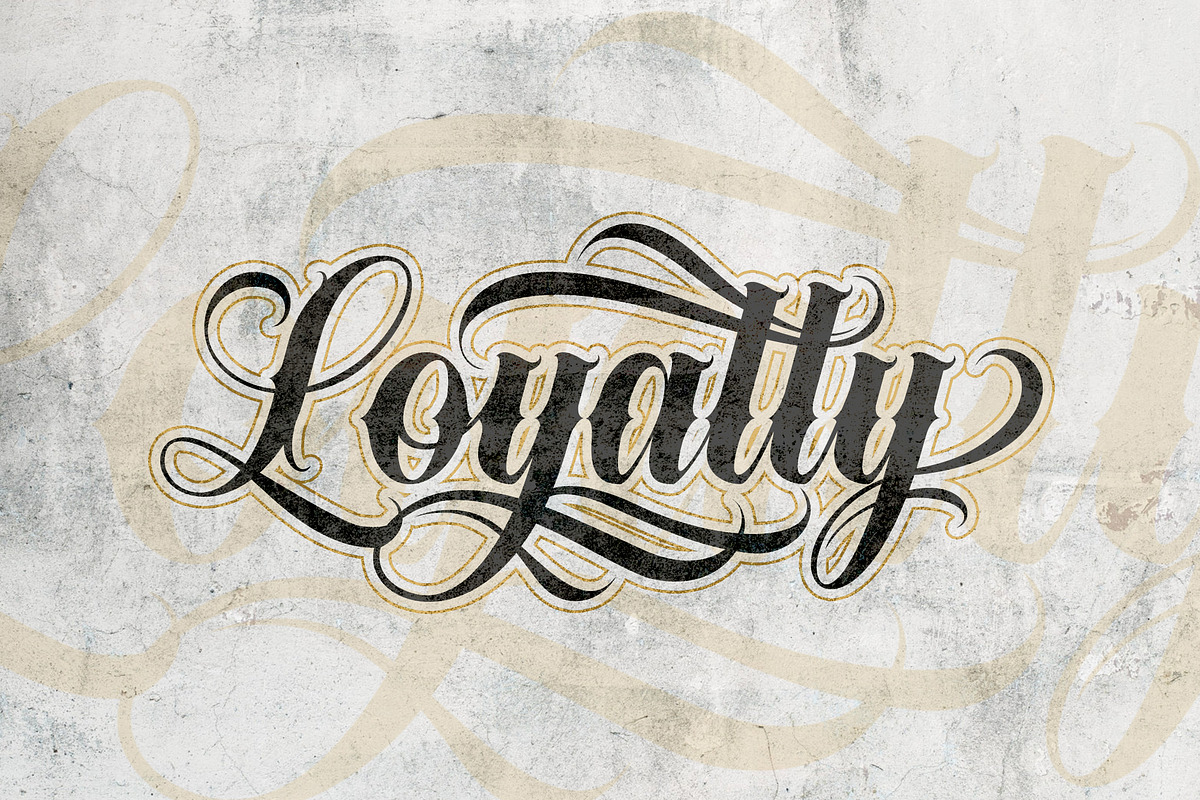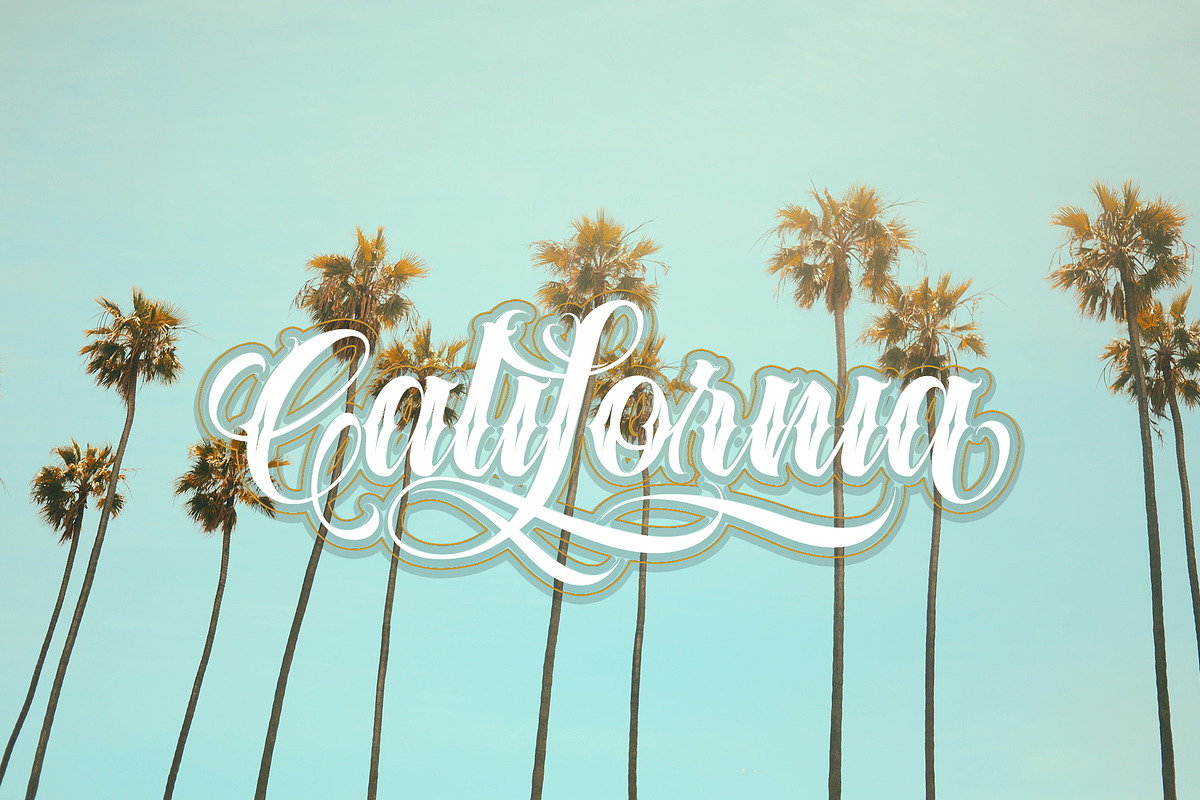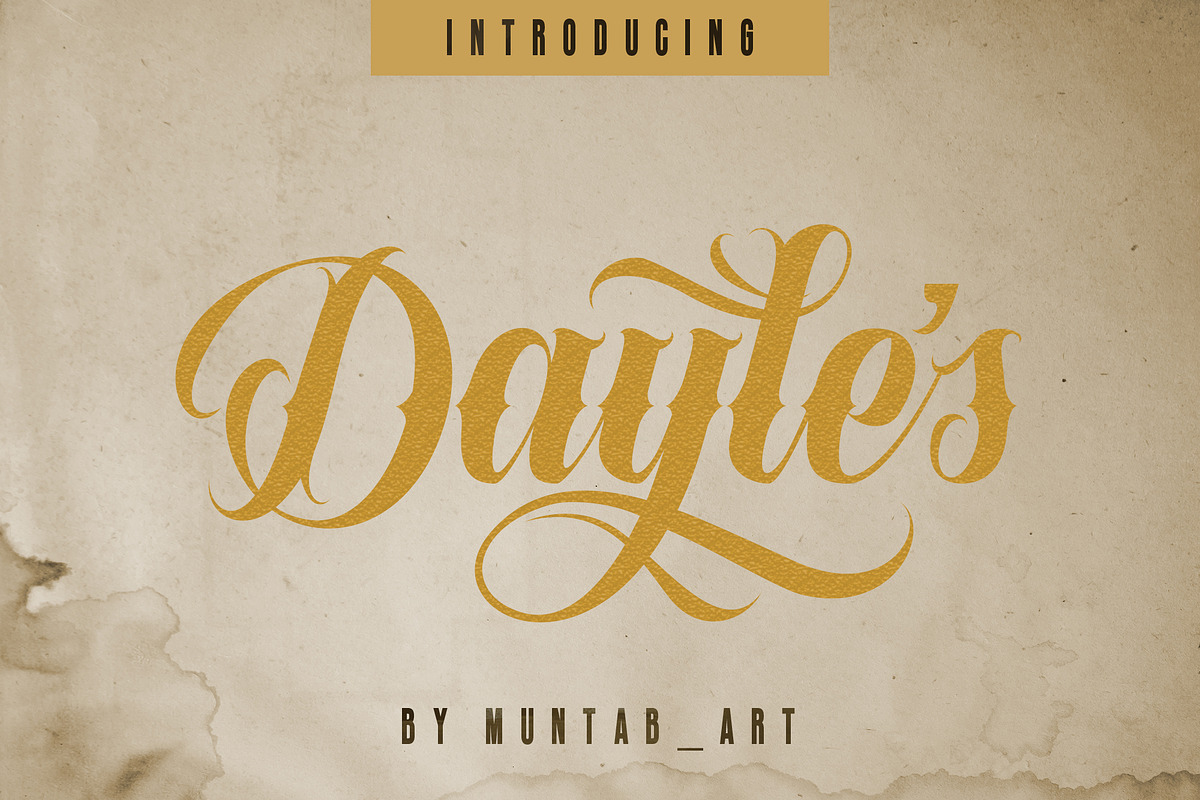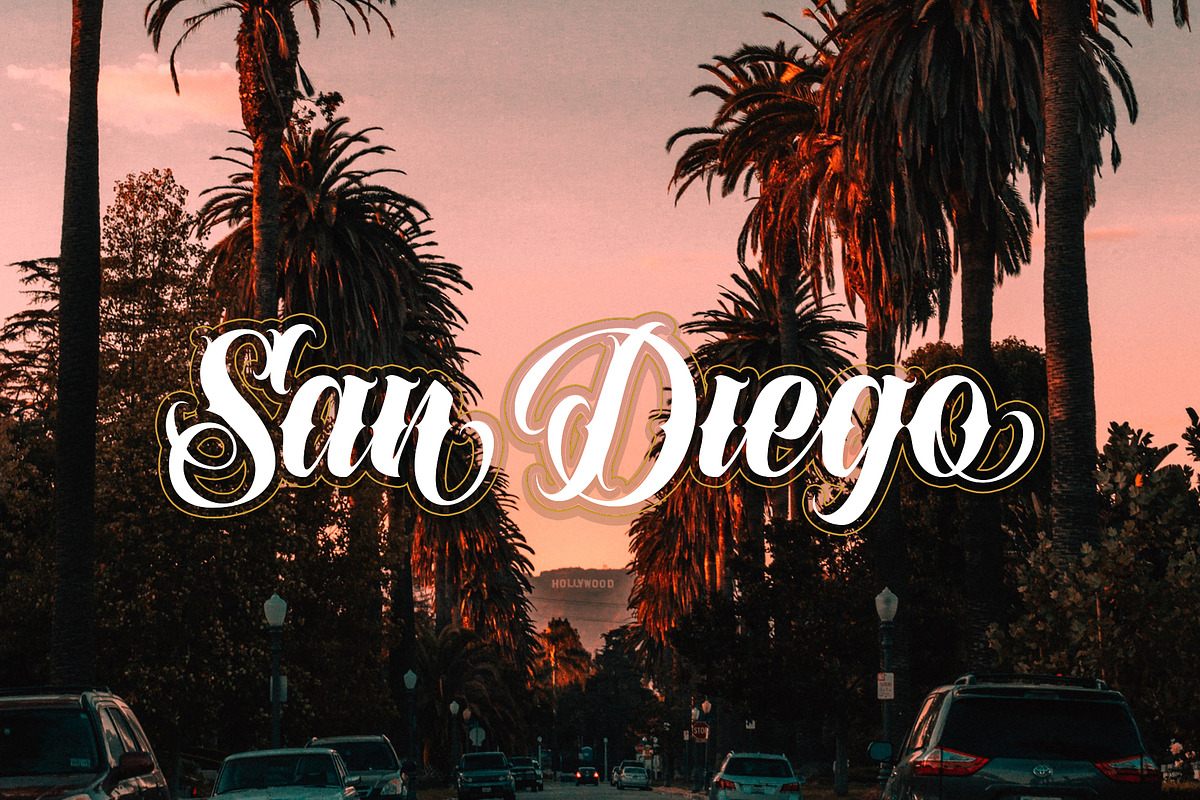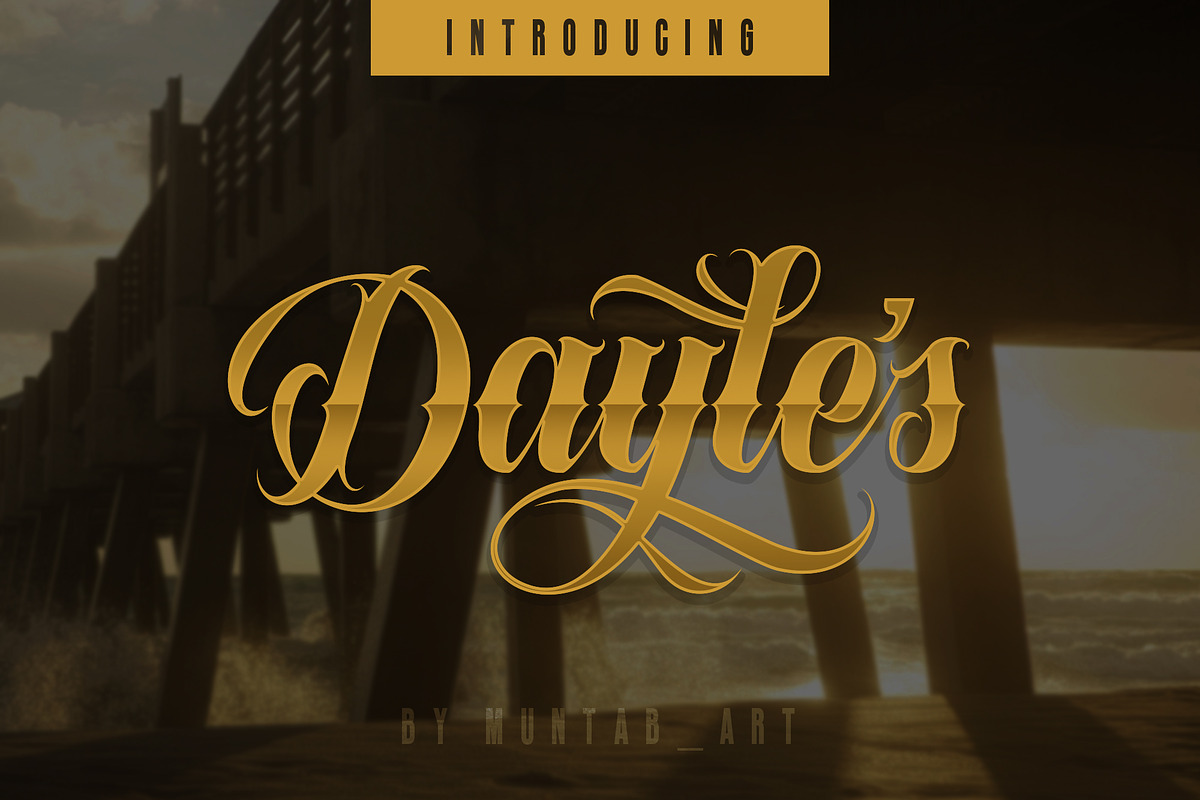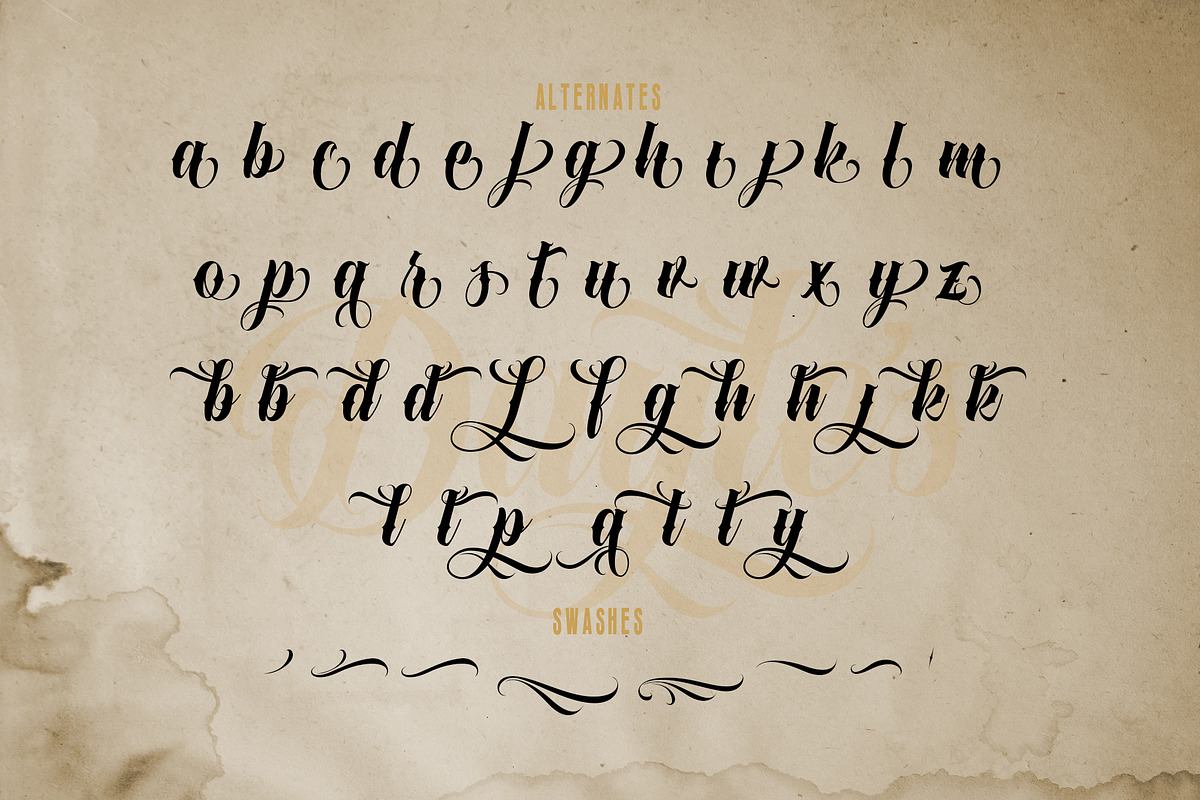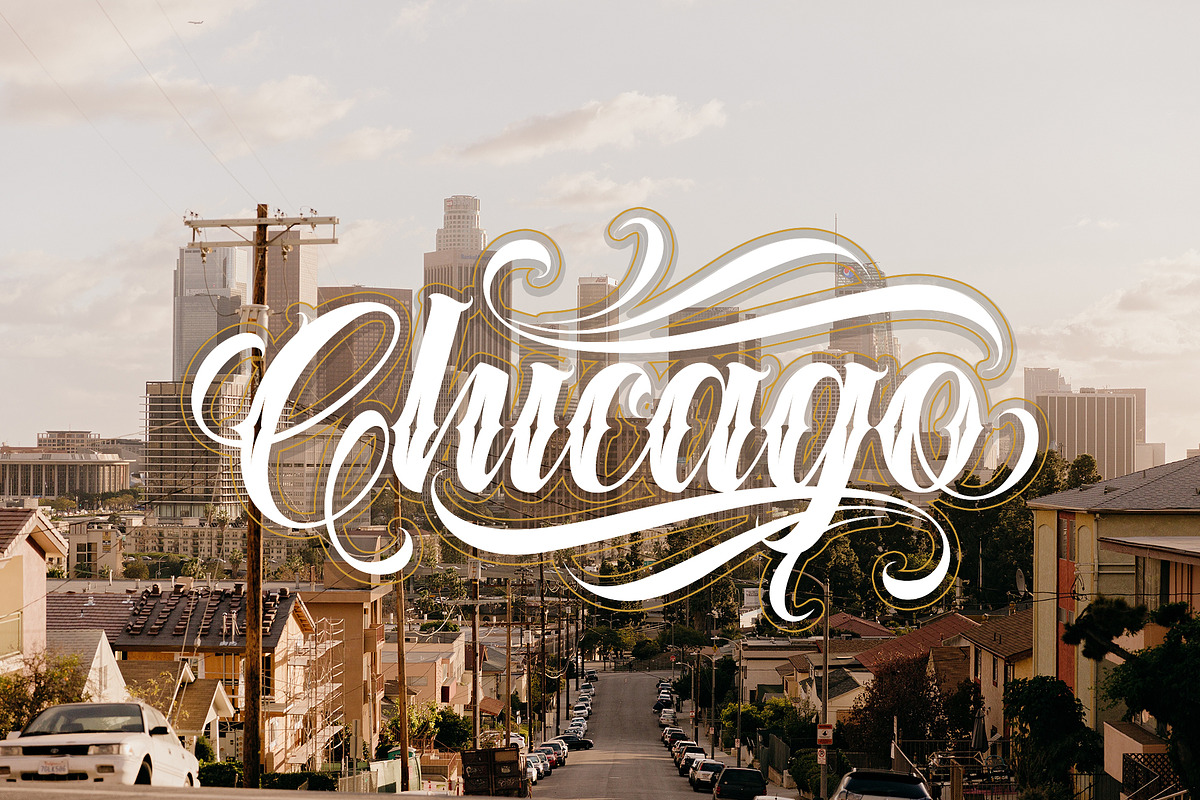
Dayles Script Fonts
Dayles Script Fonts includes uppercase and lowercase letters, numerals, a large range of punctuation and ligatures. All lowercase letters include ending swashes and alternative font.
- Dayles Script Fonts includes uppercase and lowercase letters, numerals, a large range of punctuation and ligatures.
- All lowercase letters include ending swashes and alternative font.
- Dayles Script
Why Dayles Script Fonts is worth a look
Dayles Script Fonts by MuntabArt fits naturally into Branding, posters, packaging, typography.